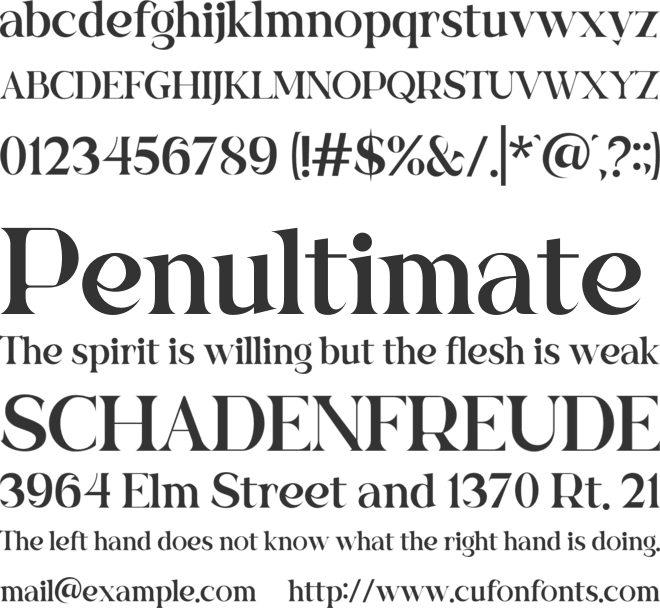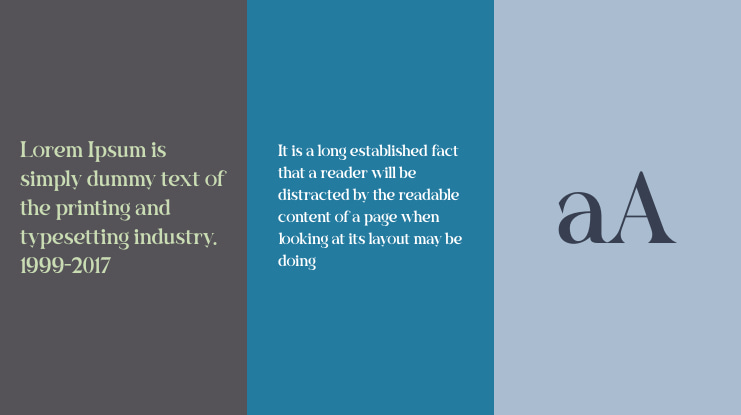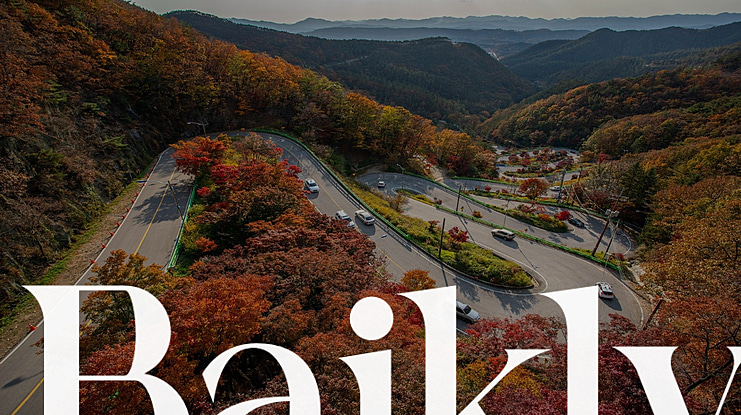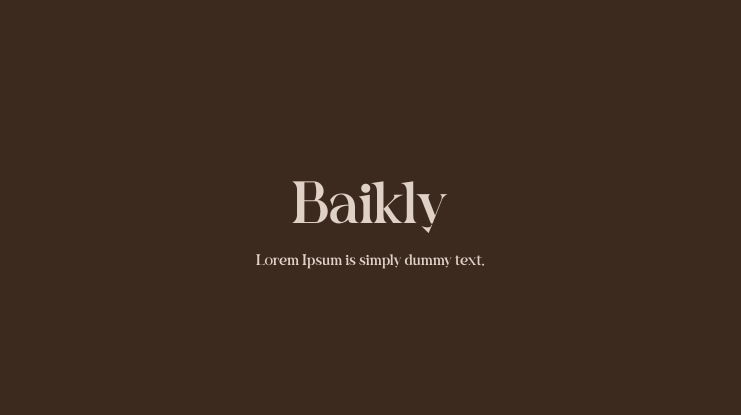
Baikly Font Family
Aditya Rezki
The Baikly Serif Font inspired from Baikal Lake in Russia
deepest and oldest lake but giving a beautiful view and spoil the eyes